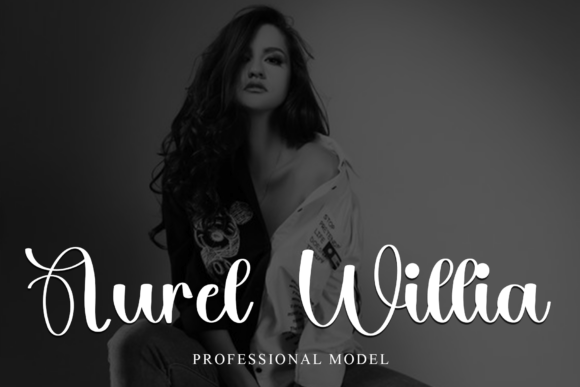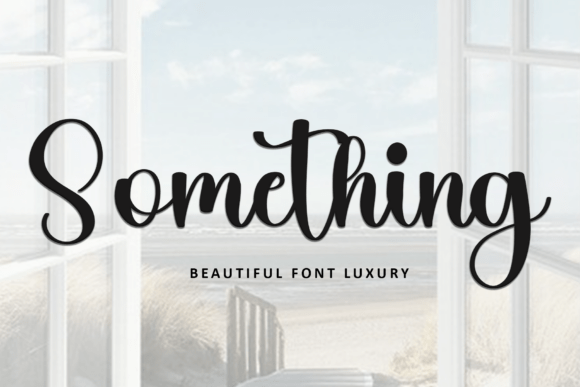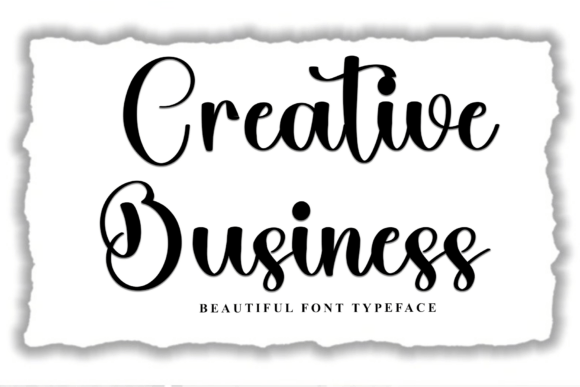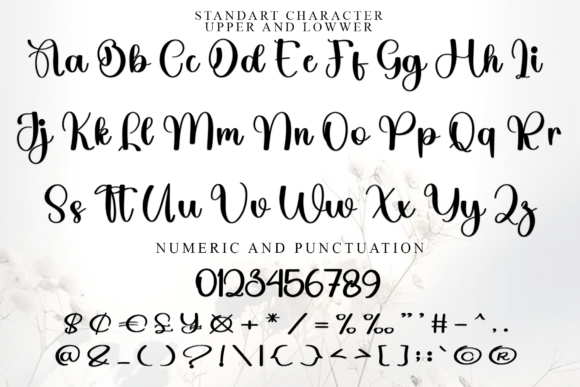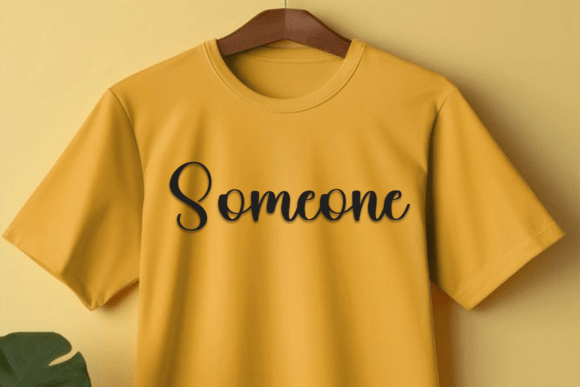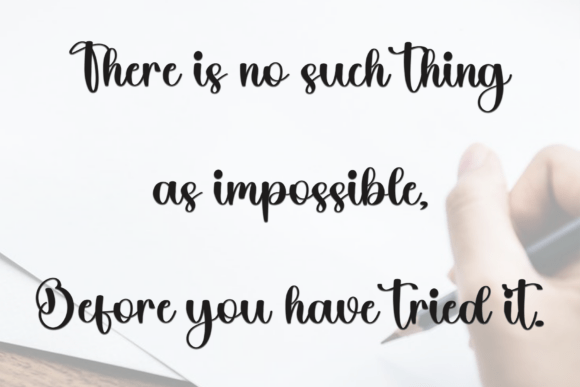
Deck the Halls with Awesome Typography
As the snowflakes start to fall and the festive lights come alive, there’s something magical about getting creative during the holiday season. It’s the perfect time to get cozy with your favorite design tools and let your imagination run wild. But, have you ever stumbled upon the perfect font to capture the essence of Christmas? For designers and crafty folks alike, I’m excited to introduce you to the Awesome Christmas Font – a beautiful and eye-catching typeface that’s sure to make your designs shine.
This lovely font is designed to add a soft, unique touch to your projects, making it perfect for a wide range of creative works. From gift tags to holiday cards, the Awesome Christmas Font is versatile and meaningful, giving your designs a special character that’s sure to delight audiences of all ages.
Awesome Christmas Font Key Features
- Font Style: A festive and playful script font, perfect for holiday designs and decorations.
- Unique Characteristics: Includes special characters and ornaments, such as snowflakes, holly leaves, and Christmas trees, to add a personal touch to designs.
A Review of “Awesome Christmas Font”
I’ve had the chance to work with “Awesome Christmas Font” and here’s my honest review.
- Fun and festive design: The font is perfect for Christmas-themed projects, it adds a playful touch to any design.
- Wide character set: The font includes a wide range of characters, from uppercase and lowercase letters to punctuation and numbers.
- Easy to use: The font is easy to apply and customize in most design software.
- Limited versatility: The font is specifically designed for Christmas-themed projects, it may not be suitable for other occasions or designs.
- No bold or italic styles: The font only comes in regular style, which can be limiting for certain design applications.
- Not suitable for large text: The font is best used for small to medium-sized text, it may not be readable at larger sizes.
Overall, “Awesome Christmas Font” is a fun and festive font that’s perfect for Christmas-themed projects. While it has some limitations, it’s a great addition to any designer’s font library. With a little creativity, you can use this font to create some amazing designs. Just be mindful of its limitations and use it accordingly.
The Awesome Christmas Font is perfect for creating festive designs, such as:
- Christmas cards and invitations
- Decorative posters and flyers
- Winter-themed social media graphics
For the best results, use the font in bold and colorful designs to create a festive atmosphere.
Q: What is the recommended font size and line height for using the Awesome Christmas Font?
For optimal readability, we recommend using the Awesome Christmas Font at a minimum size of 12 points and a line height of at least 1.2 times the font size. This will ensure the font looks great and is easy to read in various design contexts.